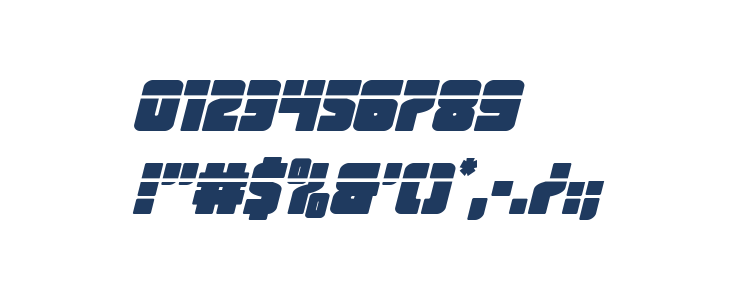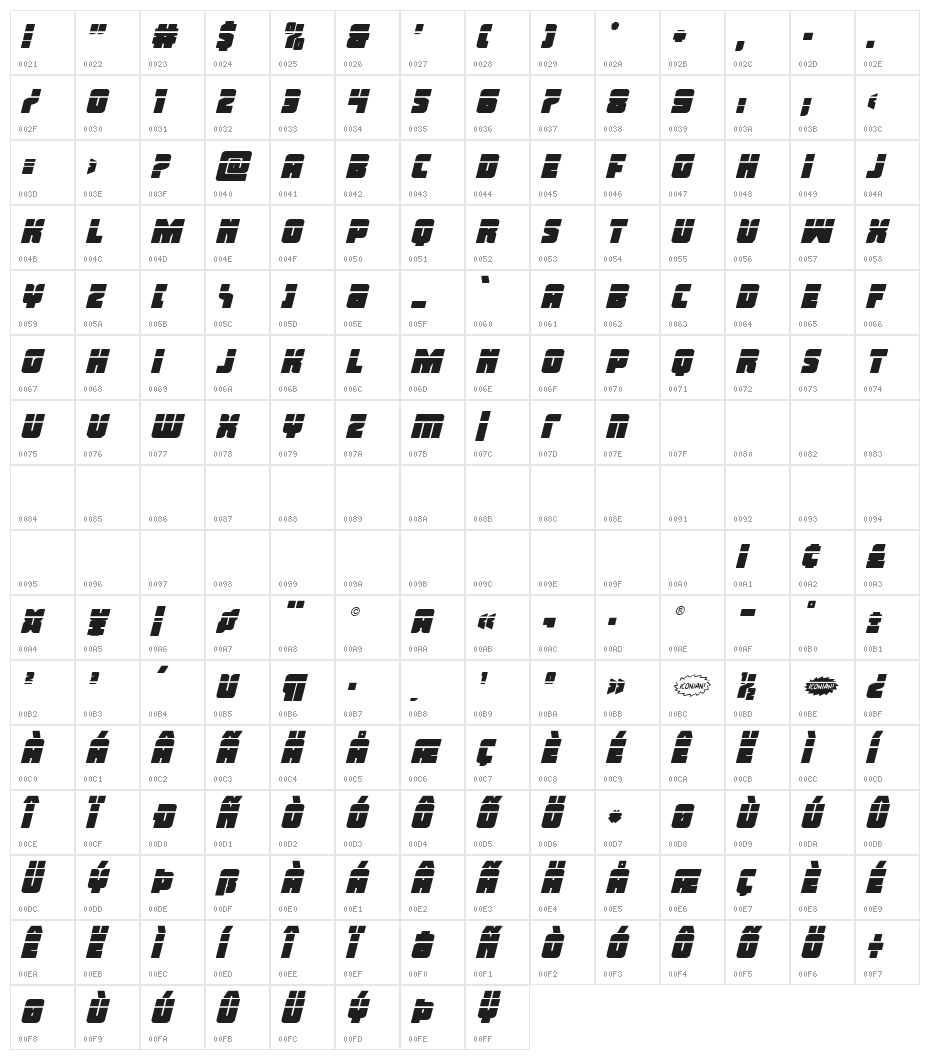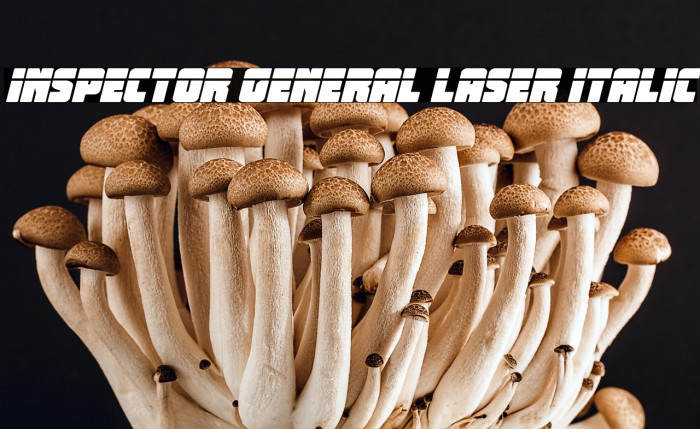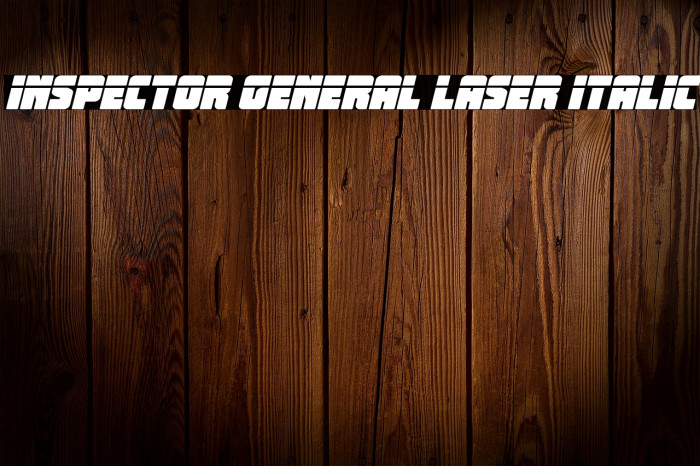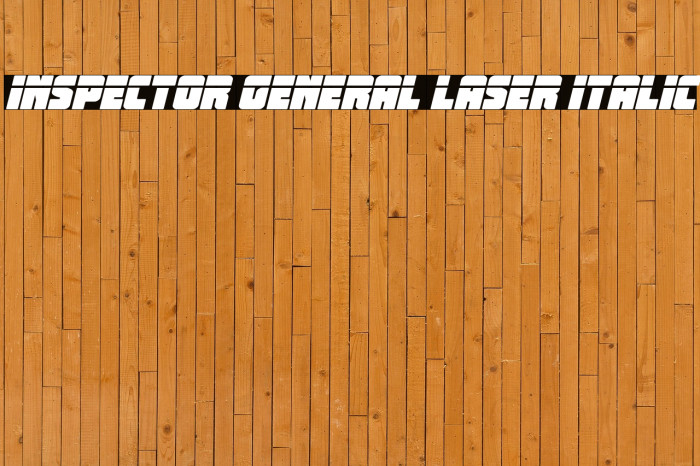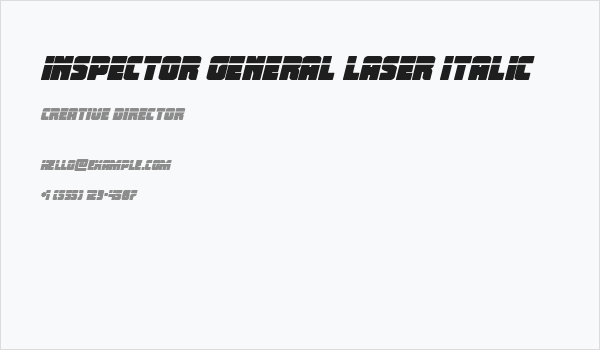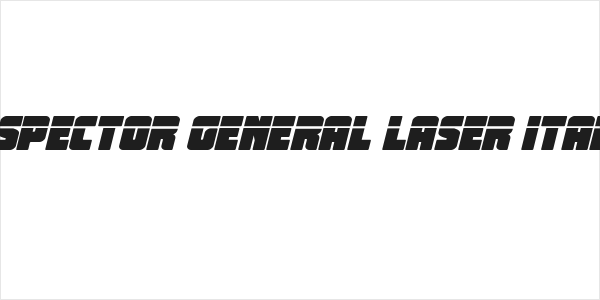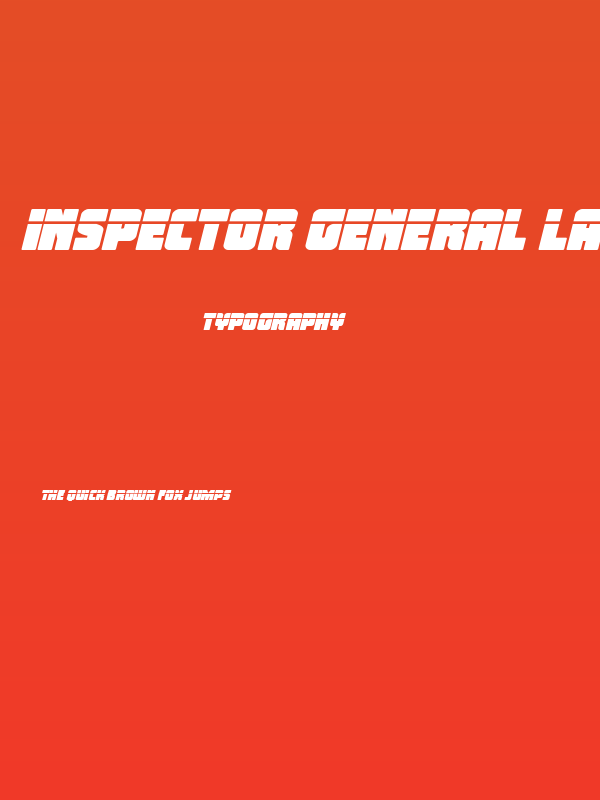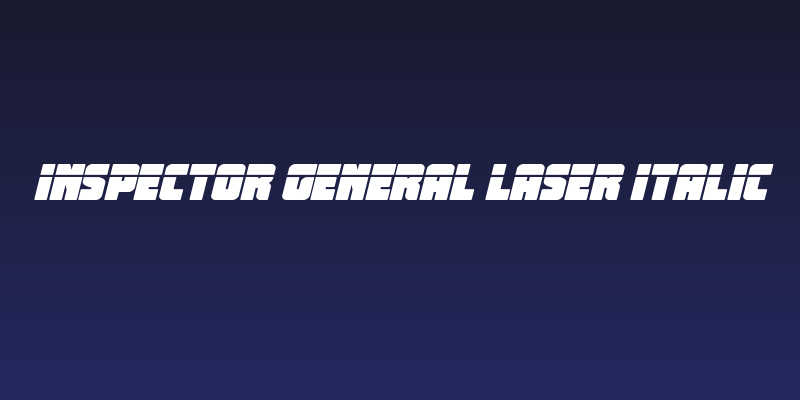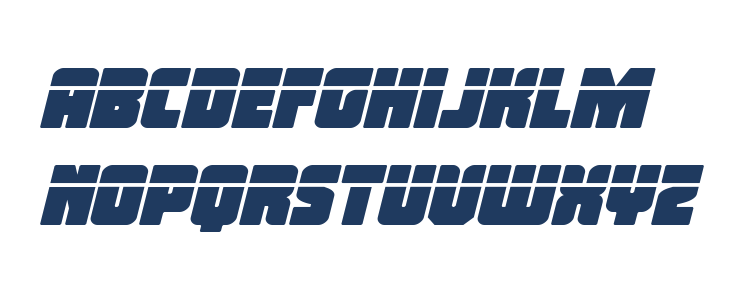
Inspector General Laser Italic Font
Inspector General Laser Italic Description
This font features a bold, futuristic design with a strong presence. The characters are wide and have a distinct slant, giving them a dynamic, forward-moving appearance. The strokes are thick and consistent, with minimal contrast, contributing to a solid and impactful look. The geometric shapes and sharp angles add a modern, industrial feel. The uppercase and lowercase letters maintain a uniform style, while the numbers and special characters are designed to match the bold aesthetic. This font is ideal for projects that require a strong, eye-catching typeface.
| Proposed Projects | Ideal for branding, posters, video game titles, and sci-fi themed designs. |